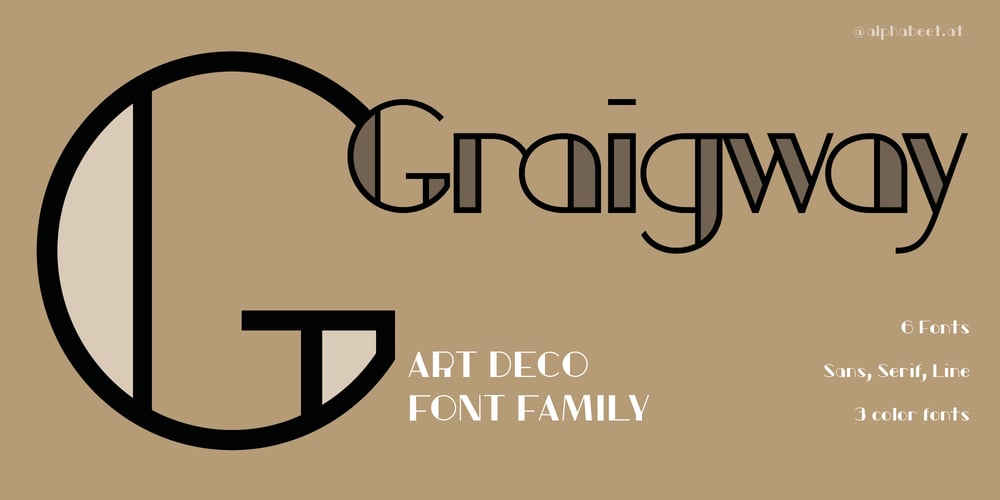
Graigway Font Family was designed by Florian Kriegner and published by alphabeet.at. Graigway contains 6 styles and family package options. Graigway is an art deco styled display font face in sans and serif. It has small caps and ‘halfcap’ alternatives included. There is an outline version with separate fillings for multilayering and color fonts with the layer-combination.